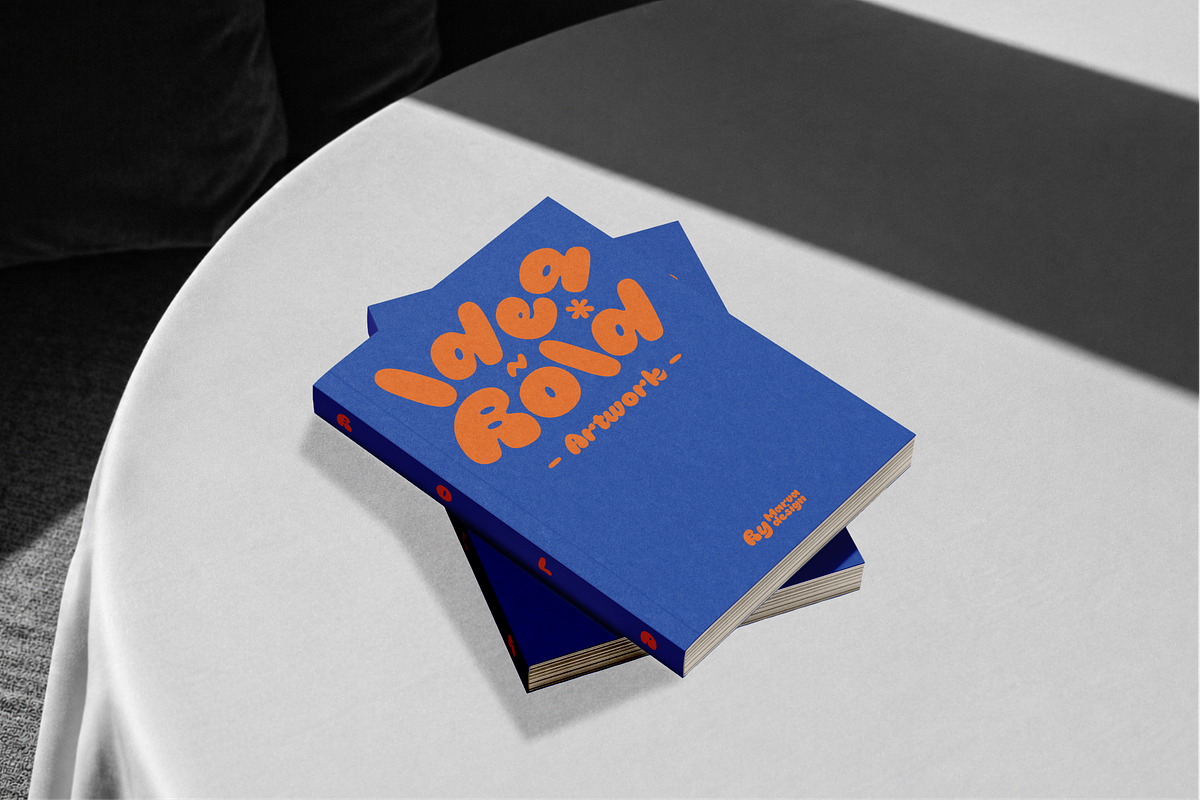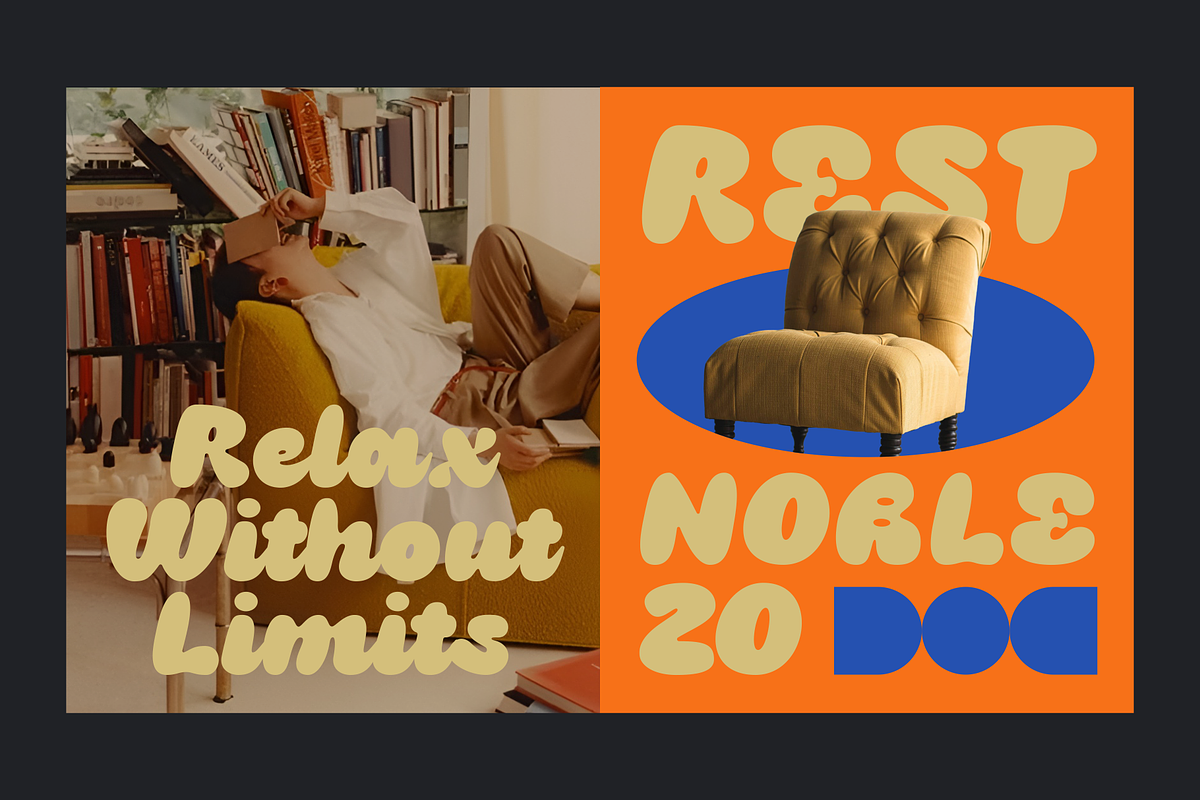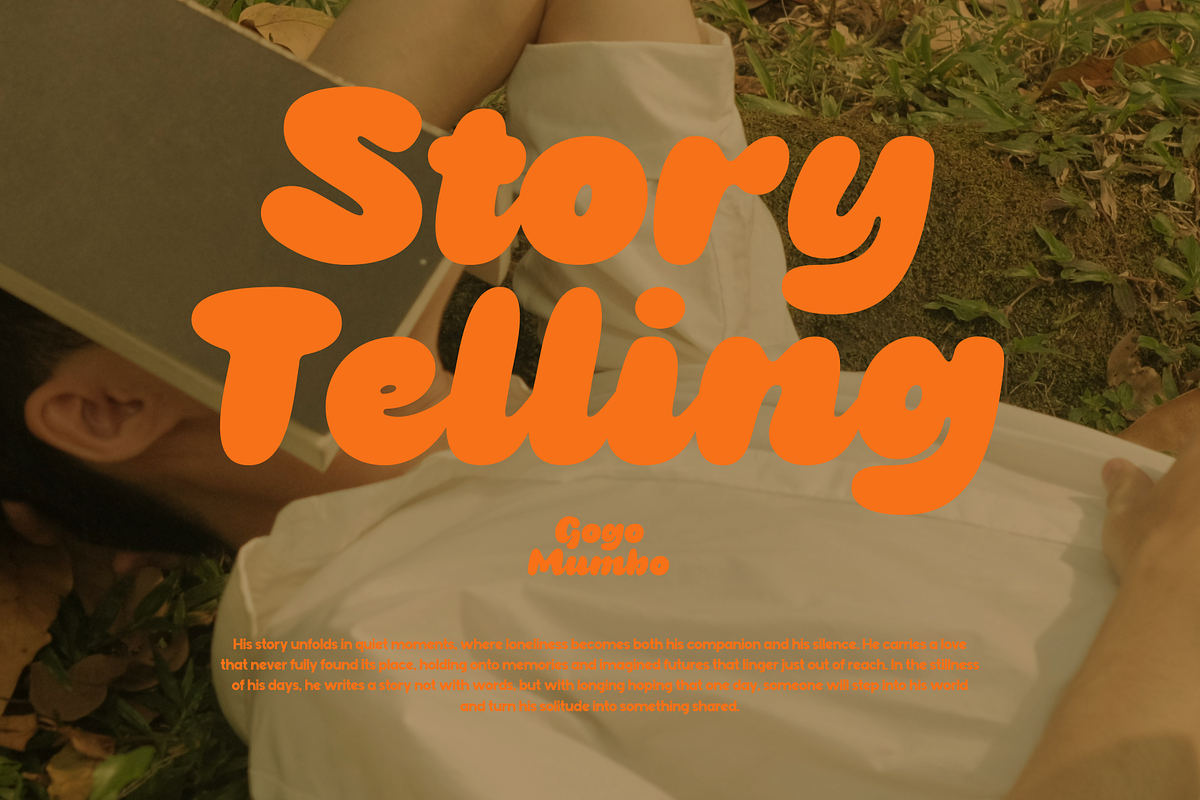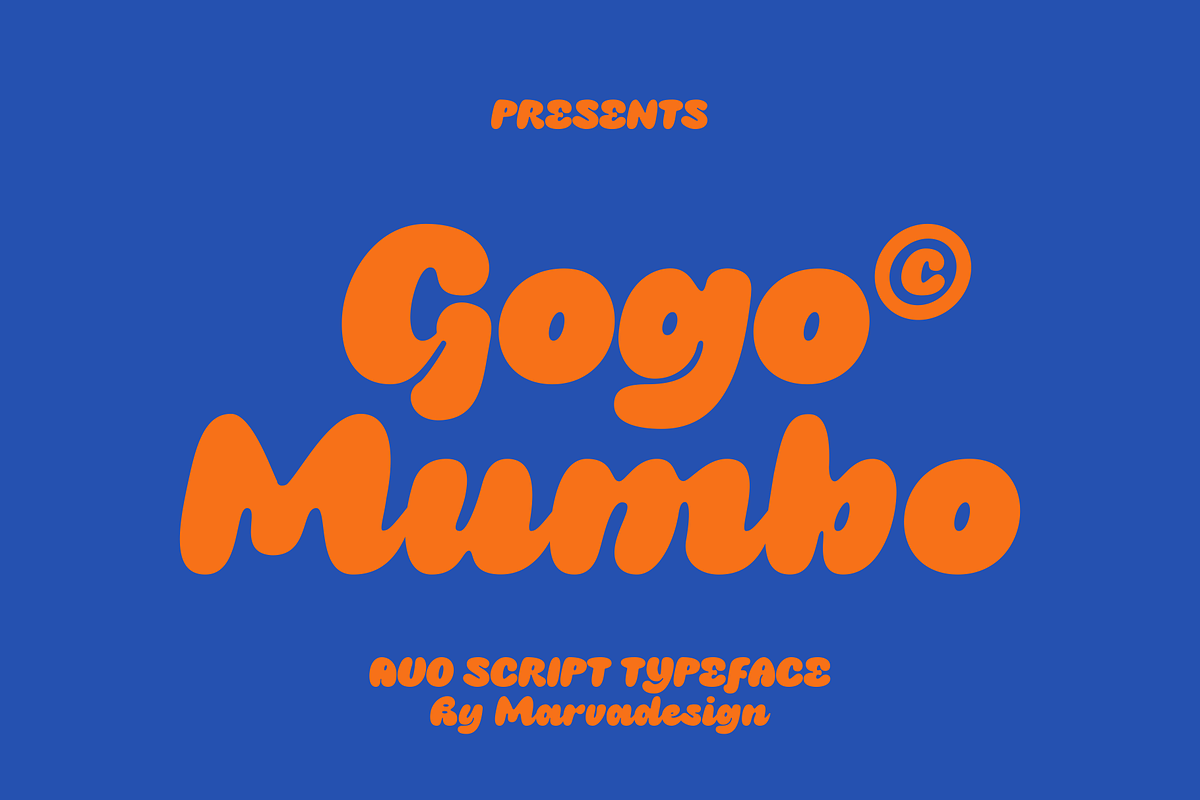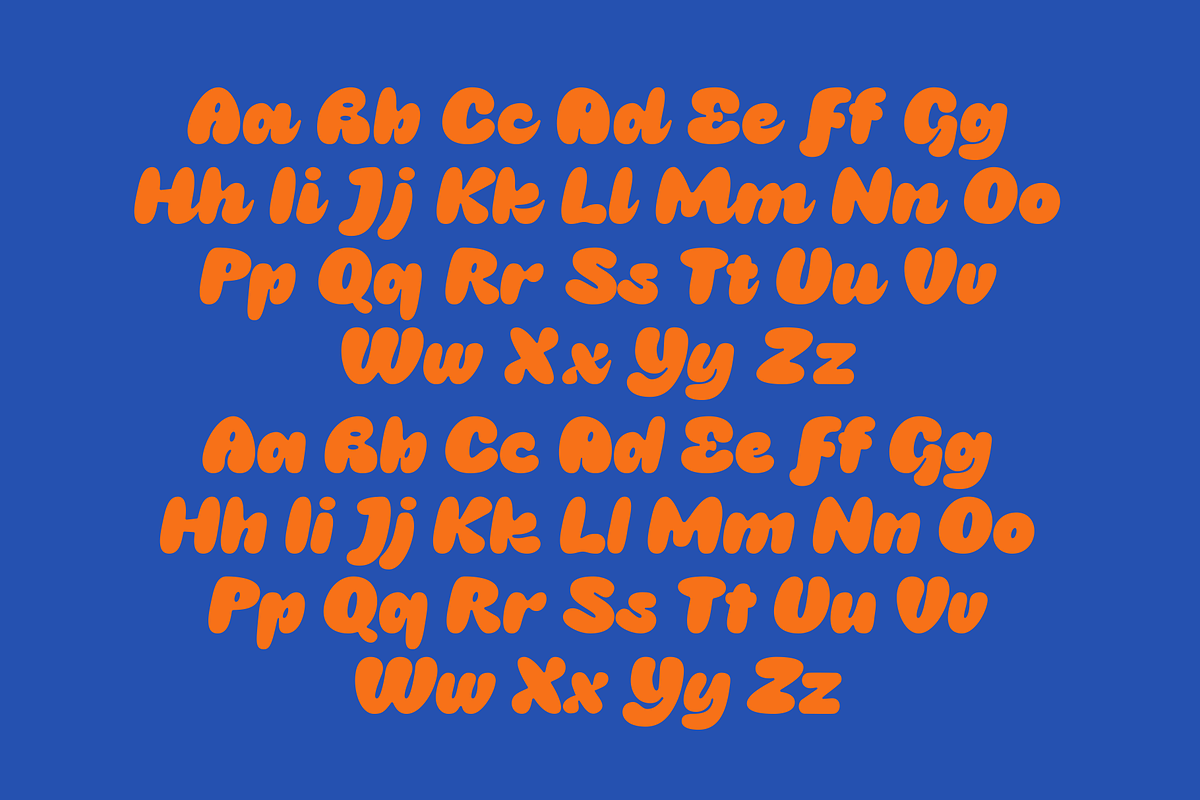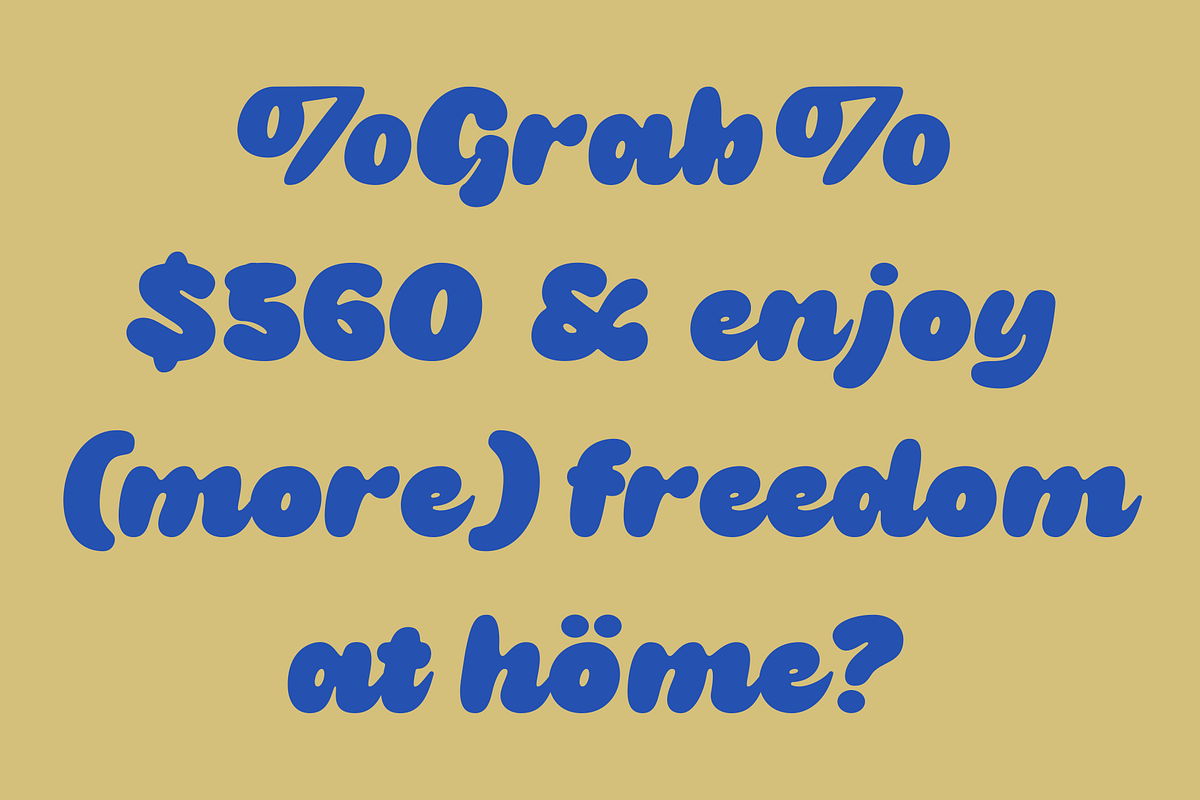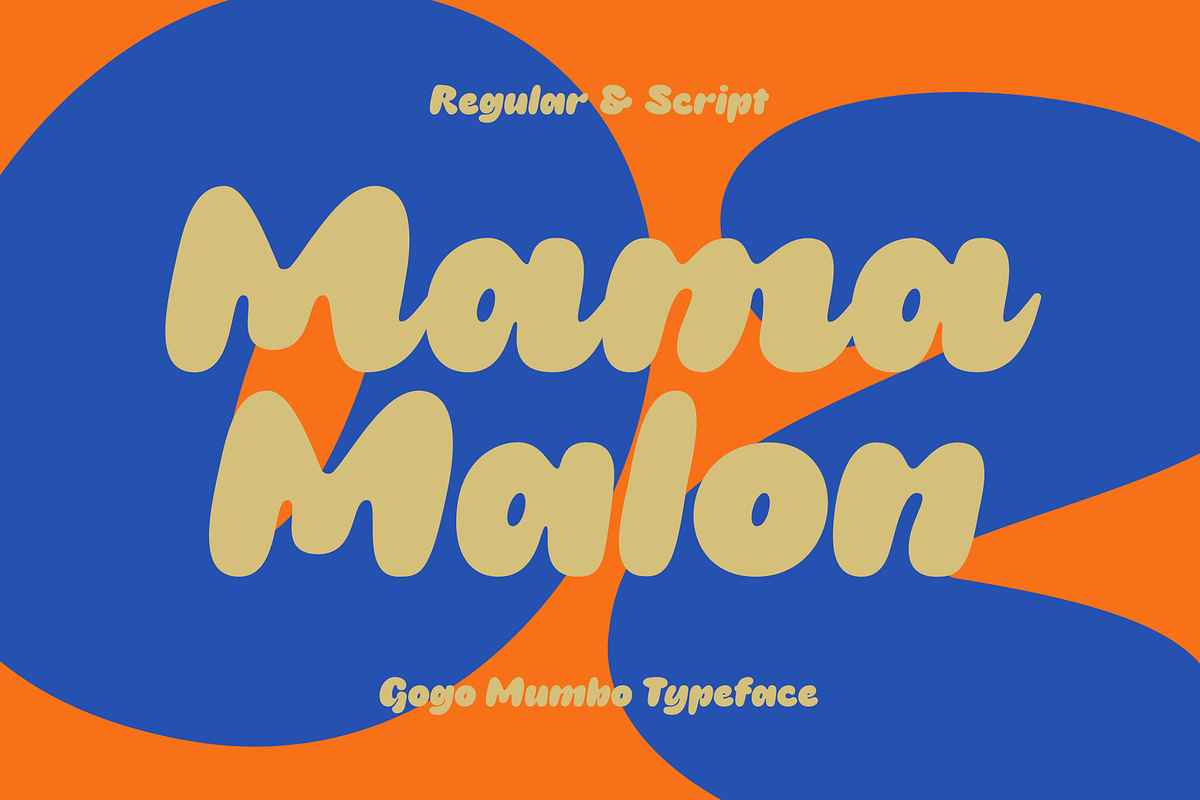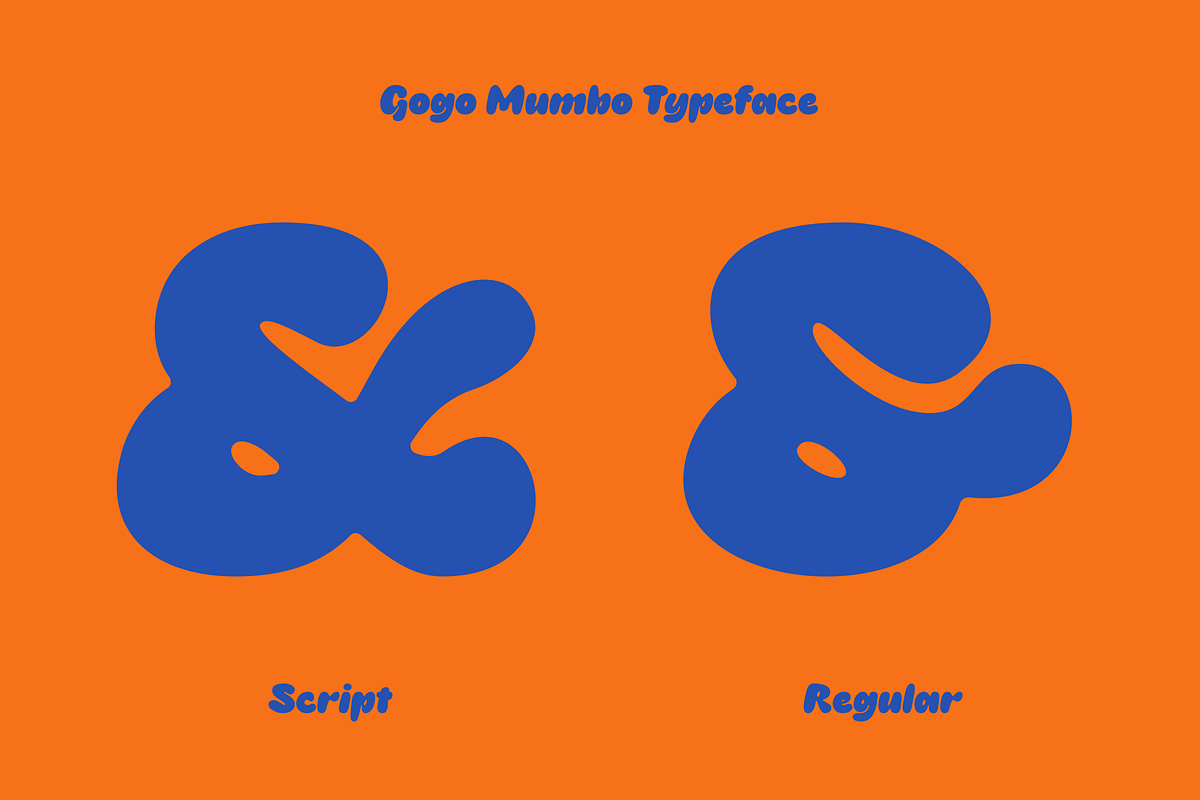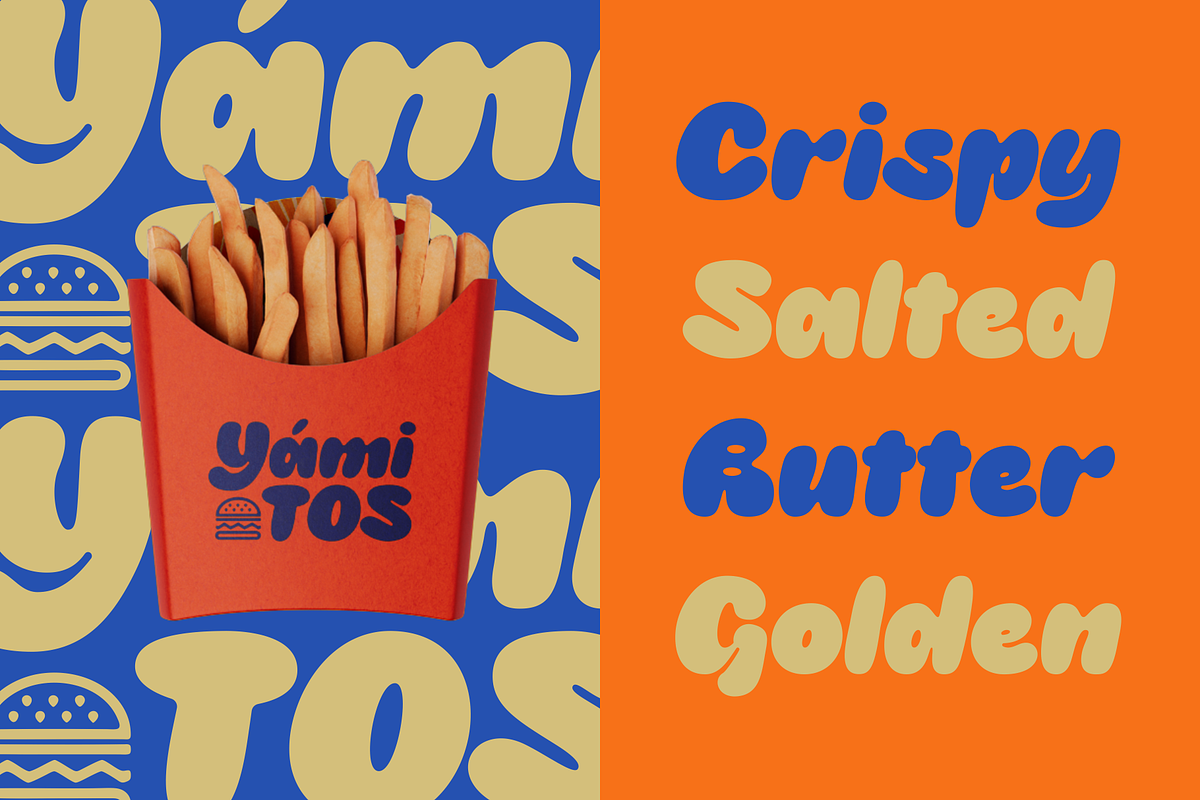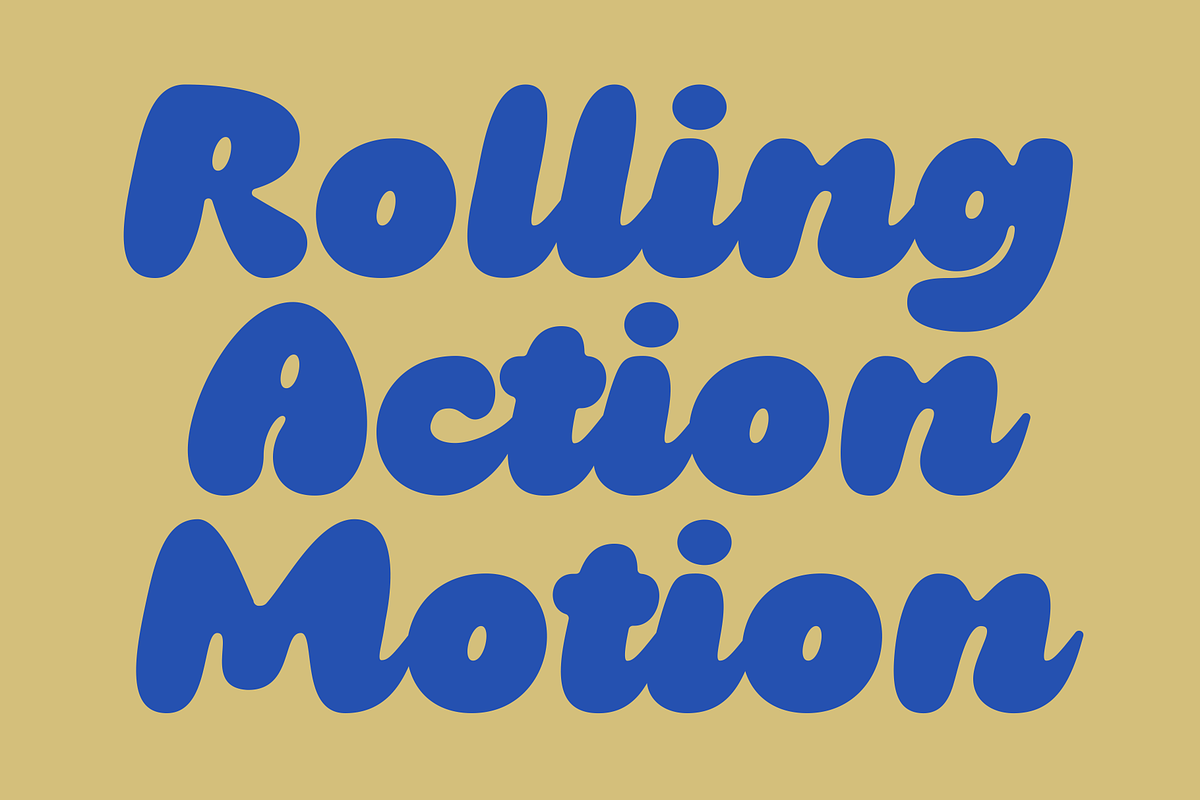
Gogo Mumbo
Gogo Mumbo presents a bold, playful display style characterized by its soft, rounded forms and thick, inflated strokes that create a friendly and approachable visual tone. The letterforms feature smooth curves with slightly irregular contours, giving it a handcrafted, organic feel while still maintaining strong readability at larger sizes. Its heavy weight and tight spacing enhance its impact, making it ideal for eye-catching headlines, posters, packaging, and branding projects that aim to convey warmth, fun, and personality. The family appears to include both regular and script-inspired variations, offering versatility in composition where the regular style provides solid, stable forms, and the script adds a more dynamic, flowing rhythm.